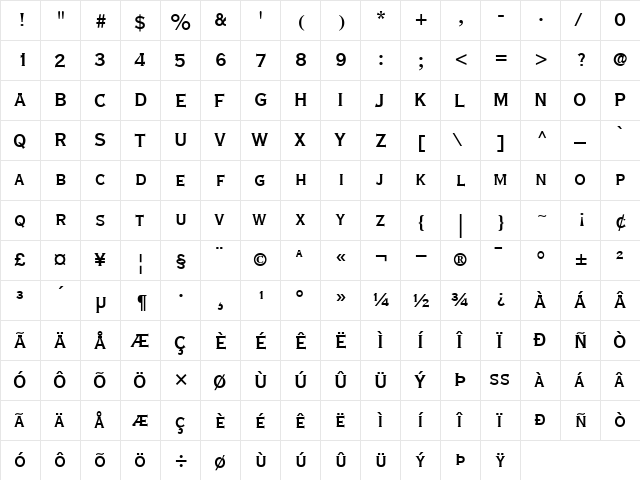
CopperplateGothicThirtyBC Roman
Design Context for CopperplateGothicThirtyBC Typeface
CopperplateGothicThirtyBC takes a clean, functional approach — its unadorned letterforms prioritise legibility and work reliably across screen and print environments.
Font Pairing: Works well alongside a characterful serif or display font that can carry the expressive load while CopperplateGothicThirtyBC handles the functional copy.
Pro Tip: Use CopperplateGothicThirtyBC for UI labels, navigation, and short-form body copy where clean legibility is the priority.